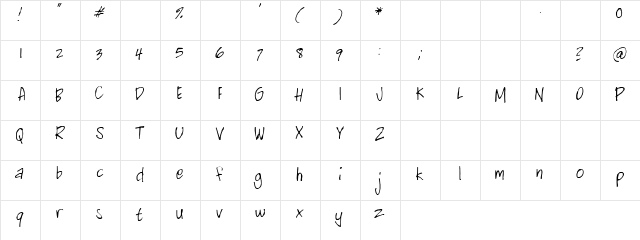
Secretary Regular
Design Context for Secretary Typeface
Secretary offers clean, dependable letterforms without strong stylistic allegiance, making it a practical choice for designers who need flexibility.
Pro Tip: Use Secretary in both headline and body roles to test its range before committing to a single application.